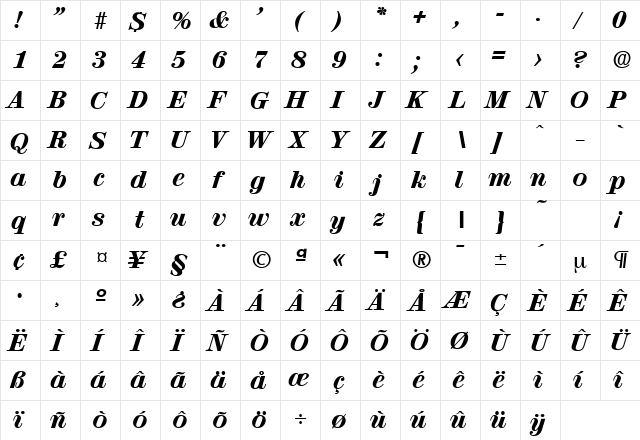
Valencia-Serial-Heavy RegularItalic
Design Context for Valencia-Serial-Heavy Typeface
Valencia-Serial-Heavy takes a measured approach to typography — its balanced proportions and neutral character make it a reliable workhorse for both digital and print work. The dynamic lean of this cut emphasises speed and emphasis in any layout.
Pro Tip: Use Valencia-Serial-Heavy for emphasis, pull quotes, and subheadings where its slanted energy can add rhythm to the layout.